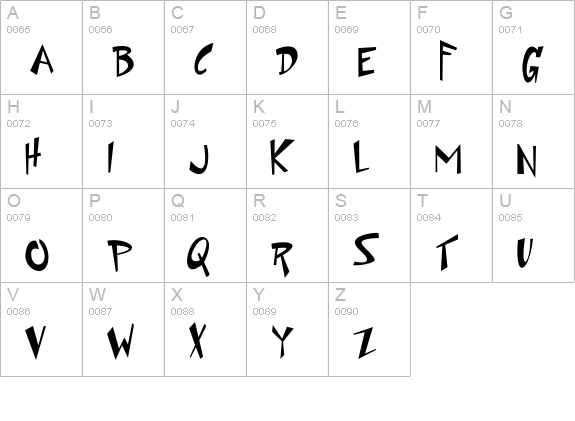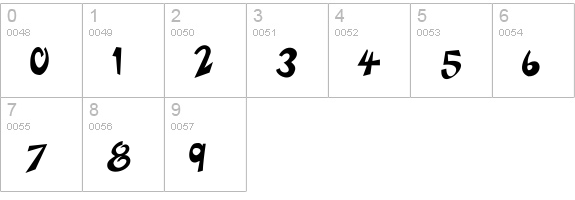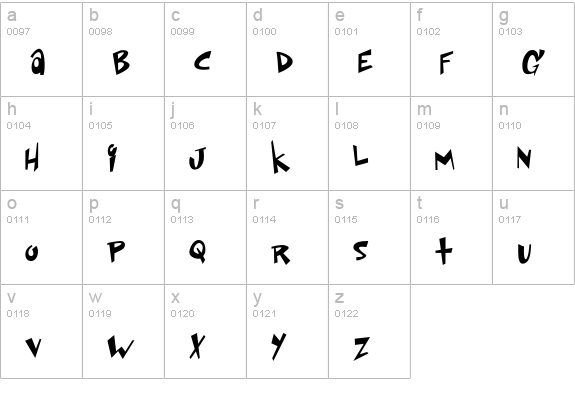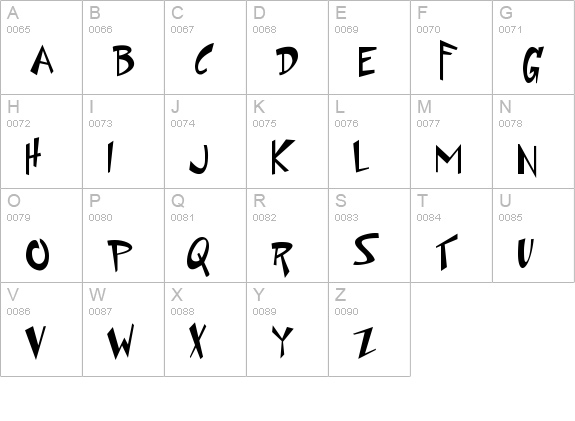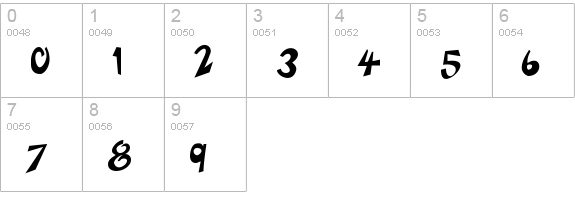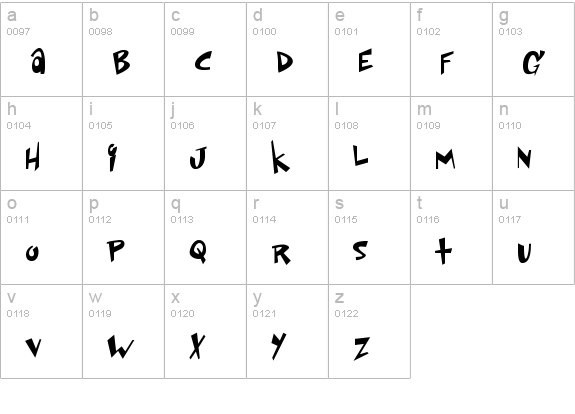
Space Up Yer Life Font Details
Introducing Space Up Yer Life, a captivating and futuristic font that will transport your designs to the outer realms of creativity. This font is the perfect blend of modernity and innovation, designed to add a touch of otherworldly charm to any project. With its sleek and streamlined letterforms, Space Up Yer Life effortlessly captures the essence of space exploration, evoking a sense of awe and wonder. Each character is meticulously crafted to create a harmonious balance between simplicity and complexity, making it versatile for both bold headlines and elegant typography. But what truly sets Space Up Yer Life apart is its unique and mesmerizing style, reminiscent of celestial bodies and interstellar adventures. Its smooth curves and sharp angles come together to form a truly captivating typeface that will captivate your audience and leave a lasting impression. And the best part? Space Up Yer Life is absolutely free! That's right, you can easily download this extraordinary font at FontsMarket.com, giving you unlimited creative possibilities without breaking the bank. Whether you're a professional designer, a creative enthusiast, or simply someone who wants to add a touch of cosmic charm to their projects, this font is the perfect choice. So why wait? Unleash your imagination and let Space Up Yer Life take your designs to new heights. Download this extraordinary font today and embark on a journey through the cosmos of creativity.